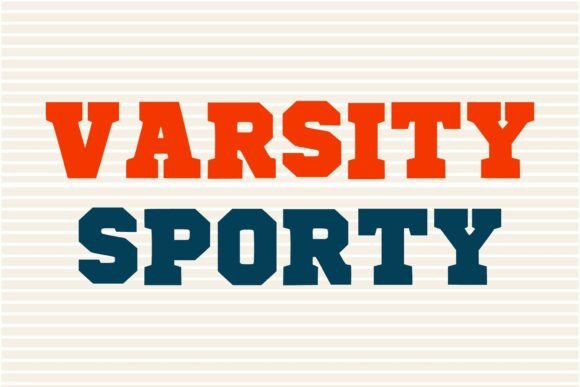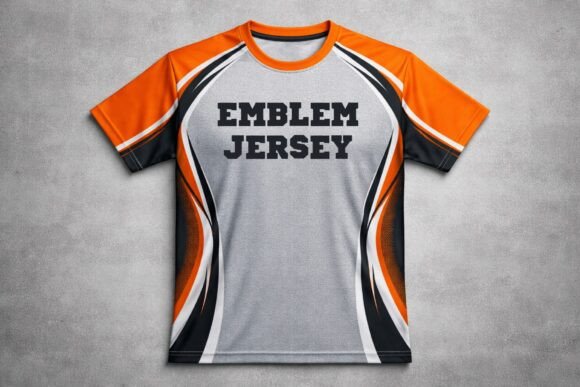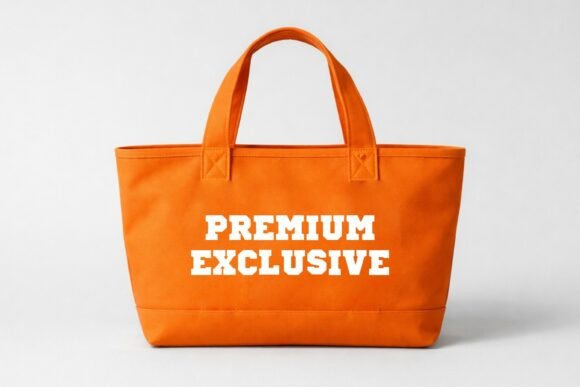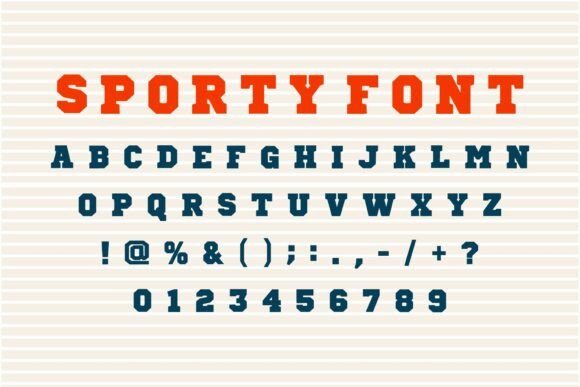
Introduction to Leader Sport Font Font
Fonts play a crucial role in design, and the Leader Sport Font font is a typeface that brings both character and versatility to any project. Whether you’re working on a branding project, a website, or a print design, the Leader Sport Font font offers a unique style that can elevate your work.
Command the field with the heavy-hitting Leader Sport font.
This specialized jersey font is designed for maximum legibility and high-impact branding in the world of athletics Featuring a classic, blocky structure with a subtle inner-line detail, the Leader Sport typeface brings a professional, league-ready aesthetic to any jersey, scoreboard, or sports marketing campaign.
Key Features of Leader Sport Font Font
Why Choose Leader Sport Font Font?
The Leader Sport Font font is more than just a typeface – it’s a design tool that helps you communicate your message with style and clarity. Its unique character set and versatile design make it suitable for a wide range of applications, from elegant invitations to bold headlines.
With its carefully crafted letterforms and balanced proportions, the Leader Sport Font font ensures readability and visual appeal across all mediums.
What makes Leader Sport Font font special?
The Leader Sport Font font stands out with its unique design, exceptional readability, and versatility across various design applications.